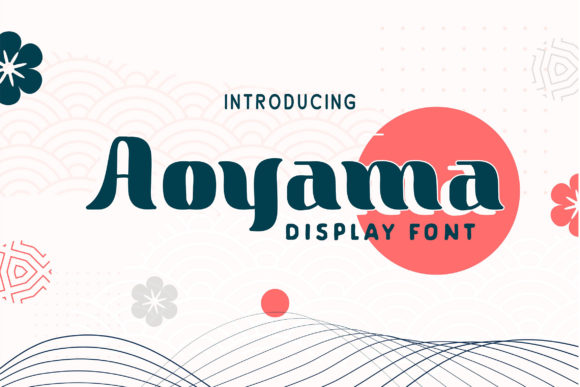
The Aoyama Font: A Stylish Addition to Your Design Arsenal
I’ll never forget the time I was working on a branding project for a trendy boutique hotel. I had nailed down the color palette, logo, and overall aesthetic, but something was missing – the perfect font. That’s when I stumbled upon Aoyama, a cool and assertive display font that instantly elevated my design. If you’re a designer, crafter, or creative hobbyist looking for a stylish touch, Aoyama might just be the font for you.
An Honest Review of Aoyama
• ✨ Aoyama’s sleek, modern design makes it perfect for headlines, titles, and short text snippets.
• ✅ The font is PUA encoded, allowing easy access to all glyphs and swashes.
• 💥 Its versatility makes it suitable for a wide range of design projects, from luxury branding to creative crafts.
While Aoyama is an excellent font, there are a few things to keep in mind:
• ⚠️ As a display font, Aoyama might not be the best choice for body text or long paragraphs.
• 🤔 Some users may find the font’s assertive personality too bold for certain design projects.
The Story Behind Aoyama
Aoyama’s design inspiration comes from the trendy Harajuku district in Tokyo, Japan. The font’s creator aimed to capture the area’s vibrant and eclectic style, resulting in a unique and stylish font that’s perfect for making a statement.
Q: What is PUA encoding, and how does it benefit Aoyama users?
A: PUA (Private Use Area) encoding allows font designers to include additional glyphs and characters that aren’t part of the standard Unicode character set. In Aoyama’s case, PUA encoding enables easy access to swashes and glyphs, making it easier to customize your text.
Q: Is Aoyama suitable for body text or long paragraphs?
A: While Aoyama is an excellent display font, it might not be the best choice for body text or long paragraphs. Its assertive personality and sleek design make it more suitable for headlines, titles, and short text snippets.